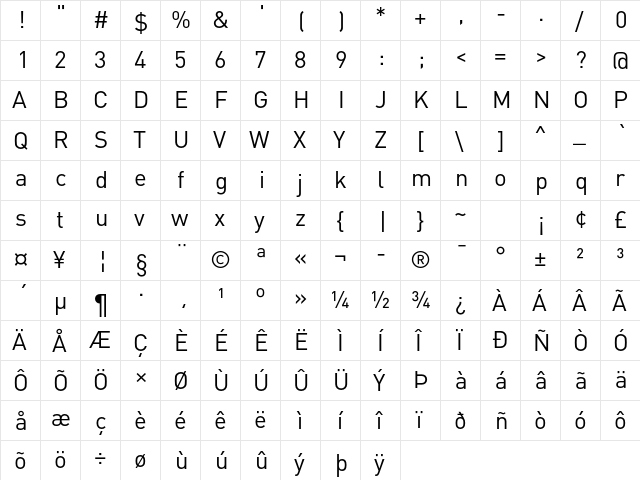
DINPro-Regular Regular
| Foundry | FSI Fonts und Software GmbH |
| Designer | Albert-Jan Pool |
Design Context for DINPro-Regular Typeface
DINPro-Regular is a composed and adaptable typeface that performs quietly and consistently across a wide range of design contexts.
Pro Tip: Pair DINPro-Regular with a font of contrasting weight or personality to build a more expressive typographic hierarchy.